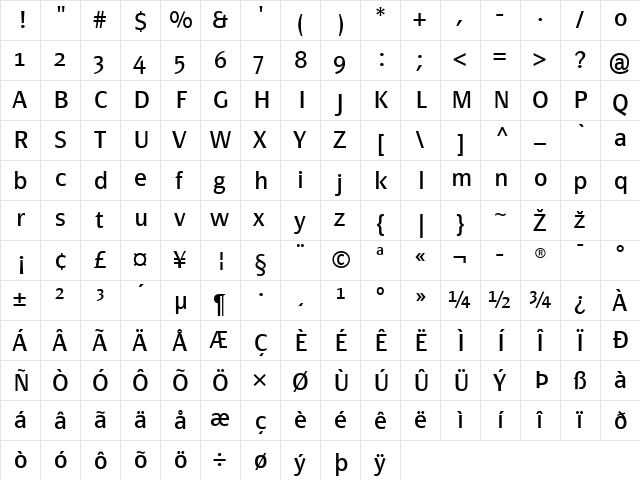
PageSans-Regular Regular
| Foundry | Albert Boton, published by FontShop International for the FontFont Library |
| Designer | Albert Boton |
Design Context for PageSans-Regular Typeface
PageSans-Regular offers clean, dependable letterforms without strong stylistic allegiance, making it a practical choice for designers who need flexibility.